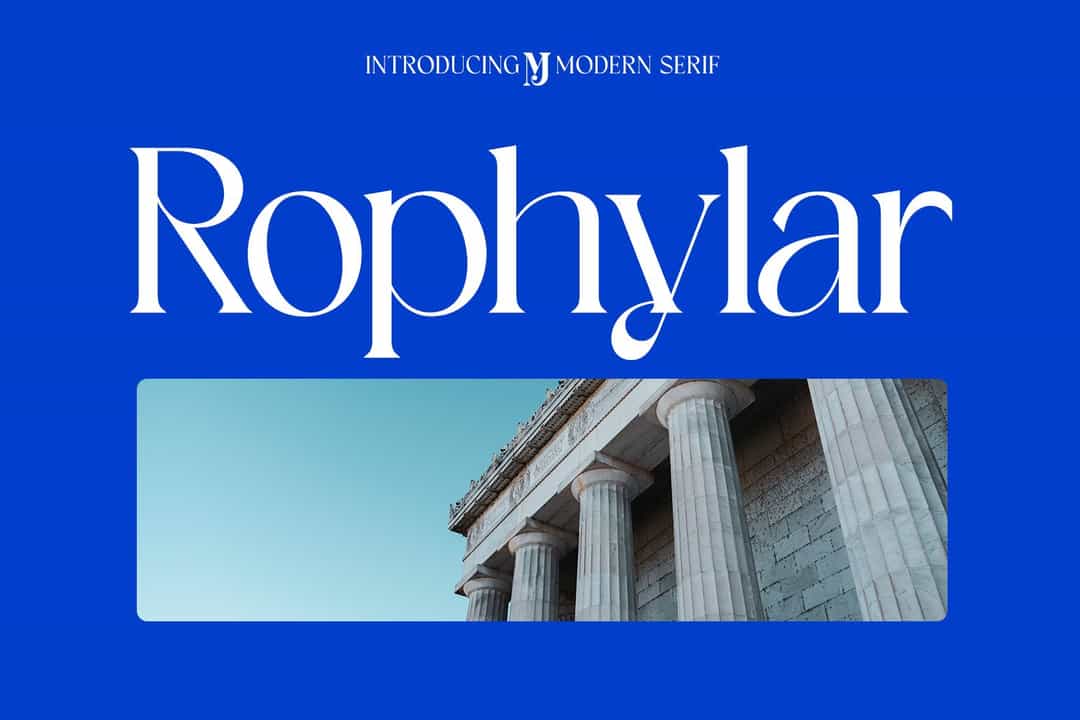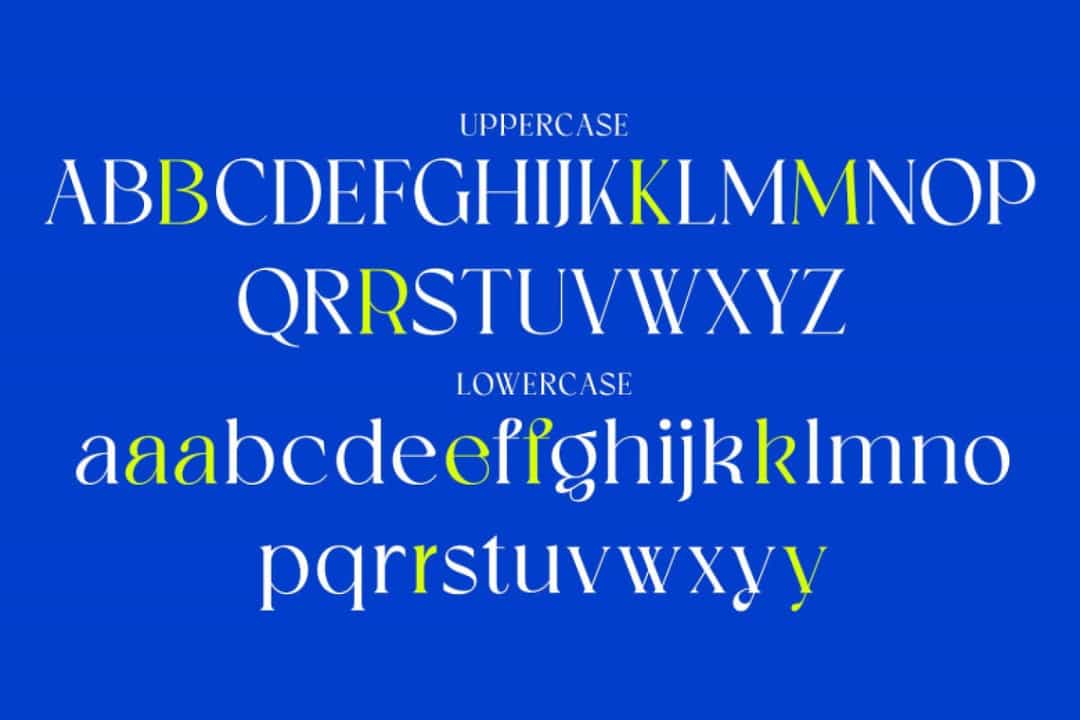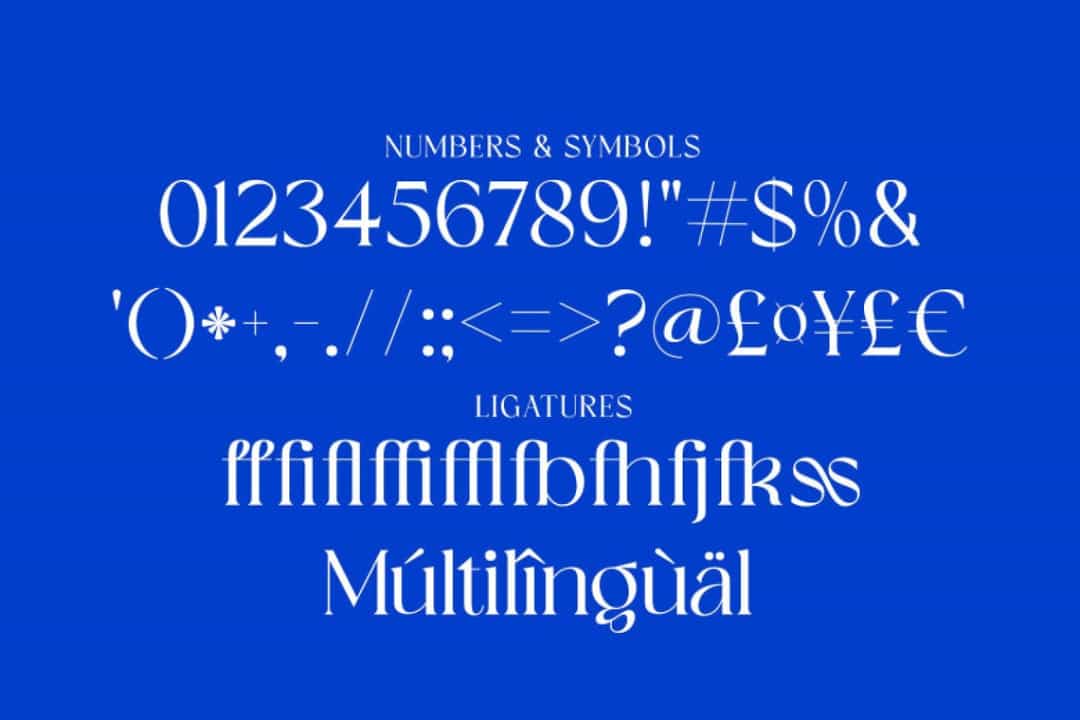
Rophylar is an elegant and modern serif typeface with plenty of personality, featuring high contrast. Both nostalgic and contemporary, Rophylar makes an ideal choice for headlines, logos, pull quotes and pull quote applications – looking great when combined with basic sans serif fonts or lighter script fonts.